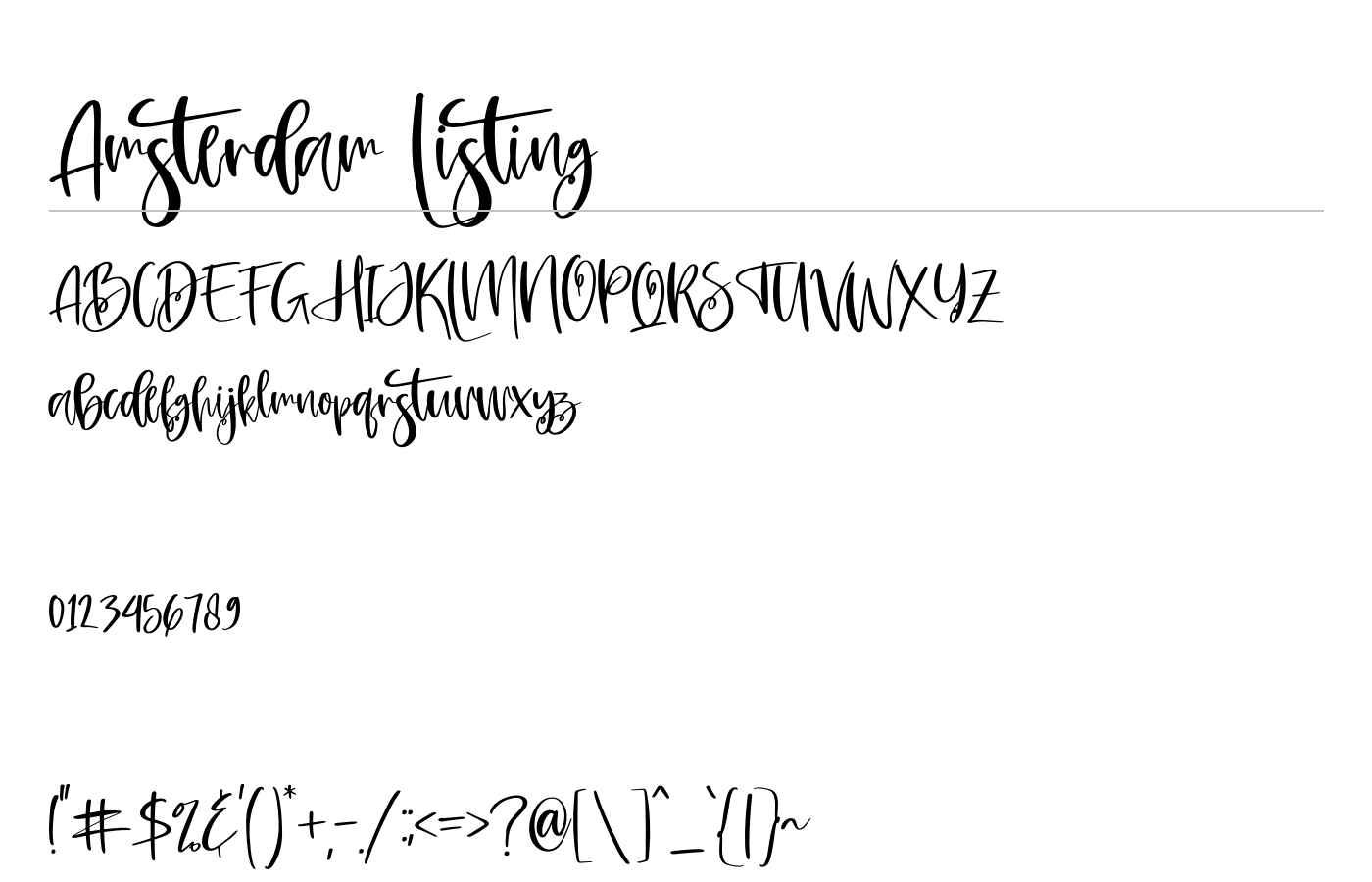
Amsterdam Listing is a playful, handwritten script font that features tall, flowing letterforms with varied stroke widths, lending it a casual yet elegant vibe. Its lively curves and decorative swashes make it perfect for creative branding, invitations, and headlines that seek a personal, artistic touch. This font works best in expressive, stylish contexts where a trendy, approachable look is desired.
Amsterdam Listing Font
About Amsterdam Listing Font